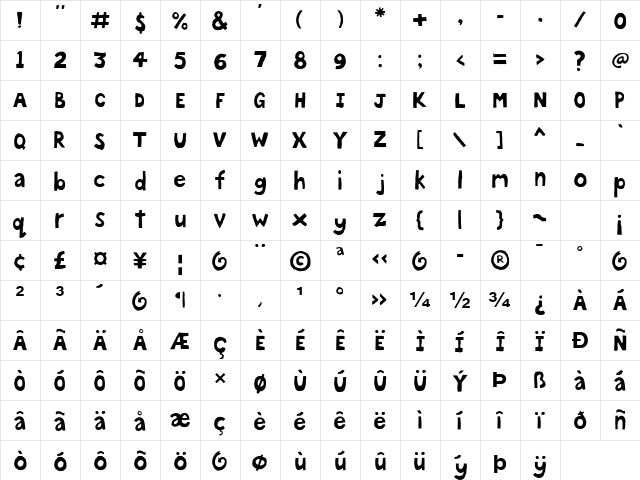
Kharabeesh Font Normal
Design Context for Kharabeesh Font
Kharabeesh Font is a composed and adaptable typeface that performs quietly and consistently across a wide range of design contexts.
Pro Tip: Use Kharabeesh Font in both headline and body roles to test its range before committing to a single application.